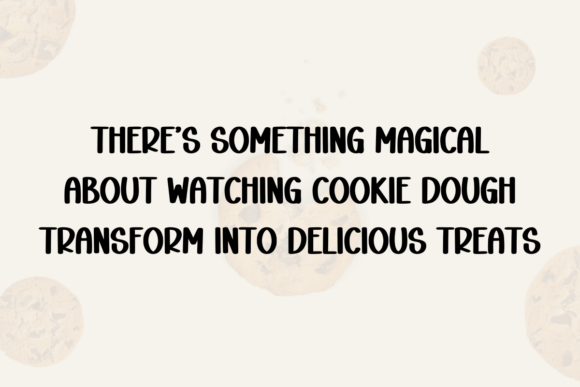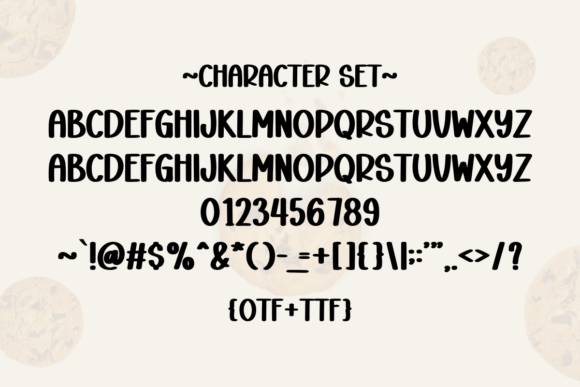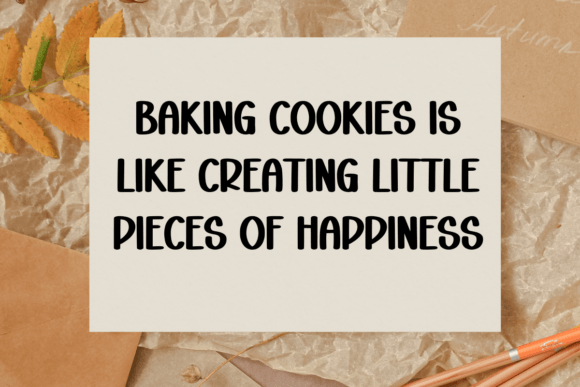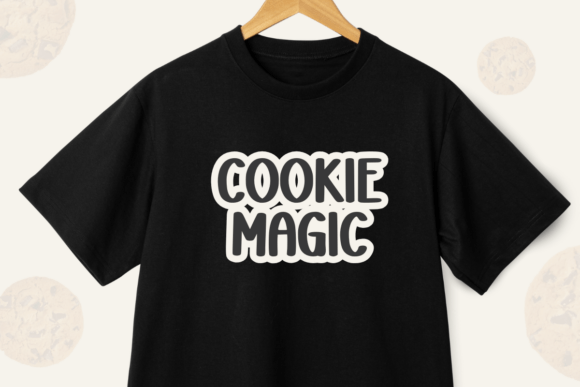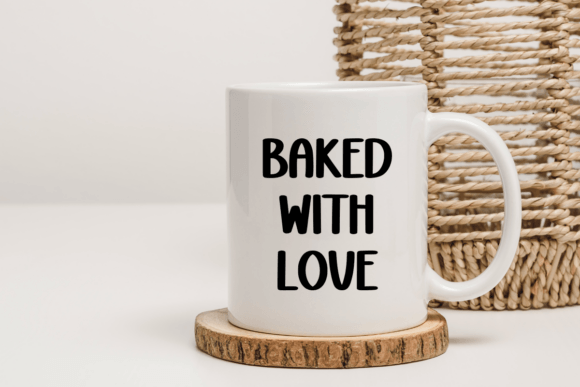
Introducing Cookie Baking Font: The Perfect Addition to Your Retro-Inspired Designs
Are you a designer or crafter looking for a font that embodies the spirit of fun, playfulness, and nostalgia? Look no further than the Cookie Baking font! This delightful sans serif font is perfect for creating retro-inspired designs that are sure to capture the attention of your audience. In this article, we’ll dive into the world of Cookie Baking font, exploring its features, uses, and benefits for designers and crafters alike.
What is Cookie Baking Font?
Cookie Baking font is a fun and bold sans serif font that is sure to add a touch of whimsy to your designs. Its clean lines, rounded edges, and bubbly personality make it the perfect choice for creating eye-catching headlines, titles, and text. Whether you’re working on a project for a bakery, a craft business, or simply want to add some personality to your designs, Cookie Baking font is the perfect addition to your font library.
Key Features of Cookie Baking Font
- Fun and playful design: Cookie Baking font features a unique and playful design that is sure to add a touch of personality to your designs.
- Bold and sans serif: The font’s bold and sans serif style makes it perfect for creating eye-catching headlines and titles.
- Retro-inspired: Cookie Baking font has a distinctly retro feel that’s perfect for creating designs that are nostalgic and fun.
- Cute and bubbly: The font’s rounded edges and clean lines give it a cute and bubbly personality that’s sure to delight.
Uses for Cookie Baking Font
Cookie Baking font is incredibly versatile and can be used in a variety of design projects, including:
- Baking and dessert-related designs: The font’s name and playful design make it a natural fit for baking and dessert-related designs, such as logos, packaging, and advertisements.
- Craft and DIY projects: Cookie Baking font is perfect for craft and DIY projects, such as handmade cards, gift tags, and other paper crafts.
- Retro-inspired designs: The font’s retro feel makes it a great choice for designs that require a nostalgic touch, such as vintage-inspired posters, flyers, and brochures.
- Fun and playful designs: Cookie Baking font is perfect for designs that require a fun and playful touch, such as children’s party invitations, games, and activities.
Benefits of Using Cookie Baking Font
Using Cookie Baking font in your designs offers a range of benefits, including:
- Instant recognition: The font’s unique and playful design makes it instantly recognizable and memorable.
- Emotional connection: Cookie Baking font’s fun and bubbly personality helps to create an emotional connection with your audience.
- Versatility: The font’s versatility makes it suitable for a wide range of design projects and applications.
- Easy to read: Cookie Baking font is clear and easy to read, making it perfect for use in headlines, titles, and body text.
Tips for Using Cookie Baking Font
To get the most out of Cookie Baking font, here are a few tips to keep in mind:
- Use it sparingly: Cookie Baking font is bold and playful, so use it sparingly to avoid overwhelming your design.
- Pair it with complementary fonts: Pair Cookie Baking font with complementary fonts to create visual interest and hierarchy.
- Experiment with colors: The font’s playful design makes it perfect for experimenting with bright and bold colors.
In conclusion, Cookie Baking font is a fun and bold sans serif font that’s perfect for creating retro-inspired designs that are sure to capture the attention of your audience. Its unique and playful design, versatility, and emotional connection make it a great addition to any design project. Whether you’re a designer or crafter, Cookie Baking font is sure to become a favorite in your font library.